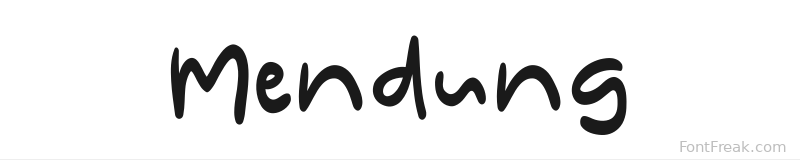
Mendung
About Mendung
Mendung, created by Syaf Rizal, is a captivating display font that embodies a unique blend of artistic flair and legibility. This font category is characterized by its distinctive, playful style that sets it apart from conventional typefaces. The visual characteristics of Mendung include a moderate stroke weight with subtle variations that create an engaging contrast. The letters feature rounded edges and a slightly irregular baseline, giving the font a handcrafted feel that resonates with creativity. The ample spacing between the characters enhances readability while allowing the design to breathe, making it ideal for various applications.
Mendung is particularly well-suited for use cases such as wedding invitations, where its whimsical charm can convey a sense of celebration and joy. It also shines in creating eye-catching movie posters, drawing attention with its unique character shapes. Additionally, restaurant menus can benefit from the inviting and friendly aesthetic of Mendung, making dishes appear more appealing. Content creators looking to add a personal touch to their social media graphics will find this font to be a perfect fit, as it stands out in a crowded digital landscape.
What truly makes Mendung stand out is its ability to combine artistic expression with functional design. Its playful nature invites creativity while maintaining a level of professionalism that makes it versatile for numerous applications. For those interested, the Mendung font free download offers an opportunity to enhance their designs with this striking typeface.